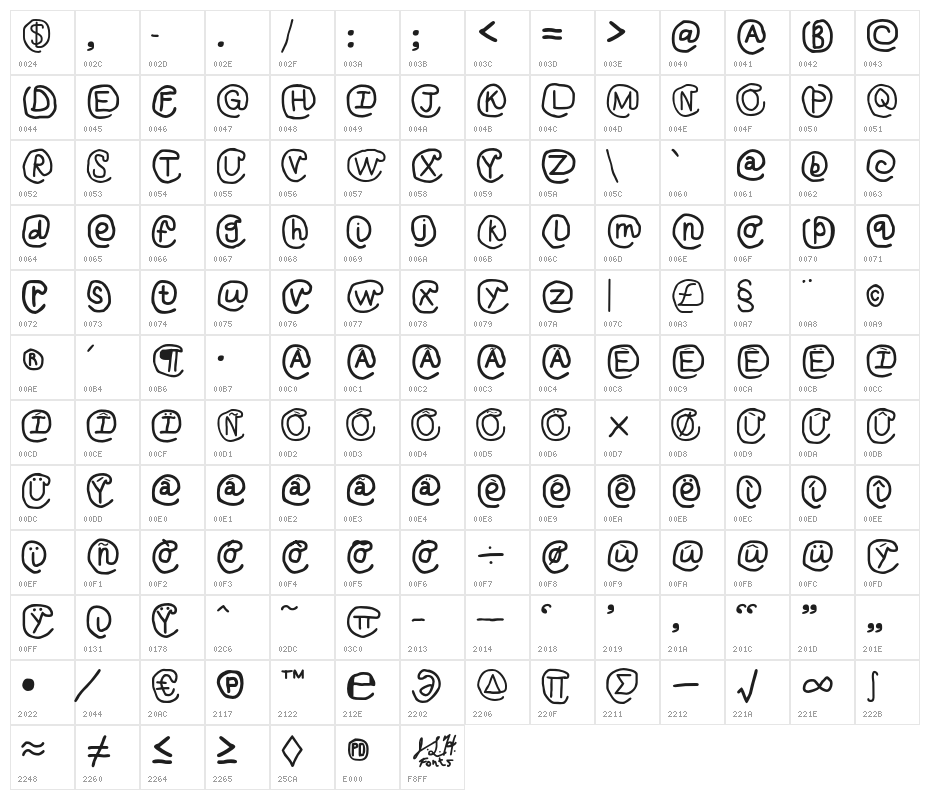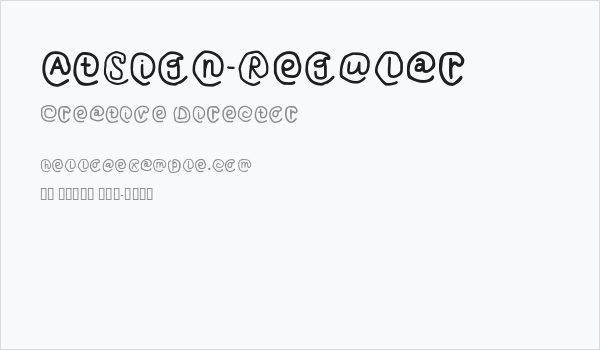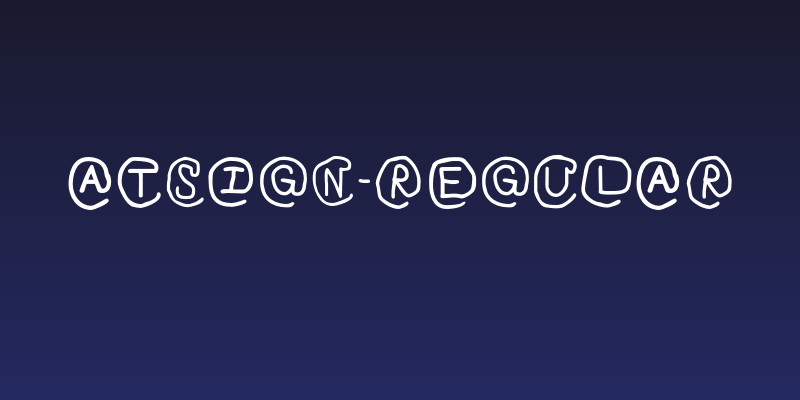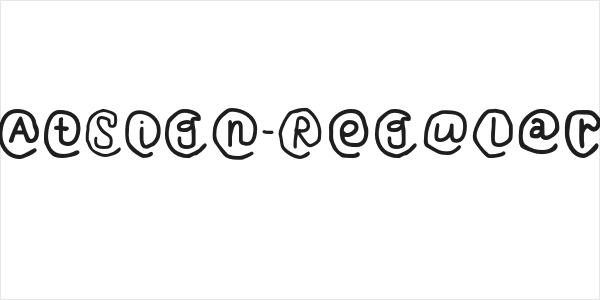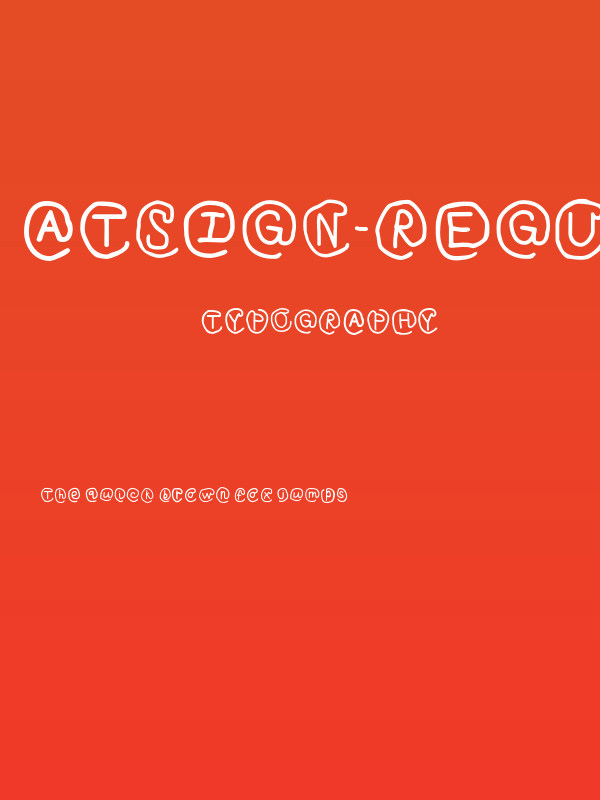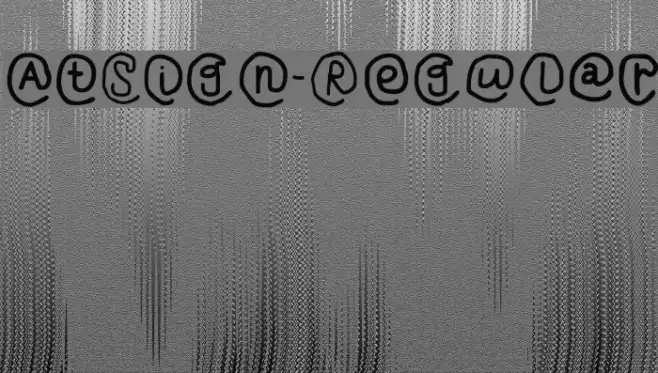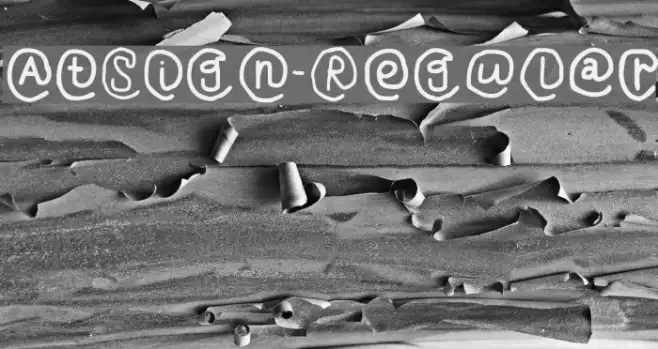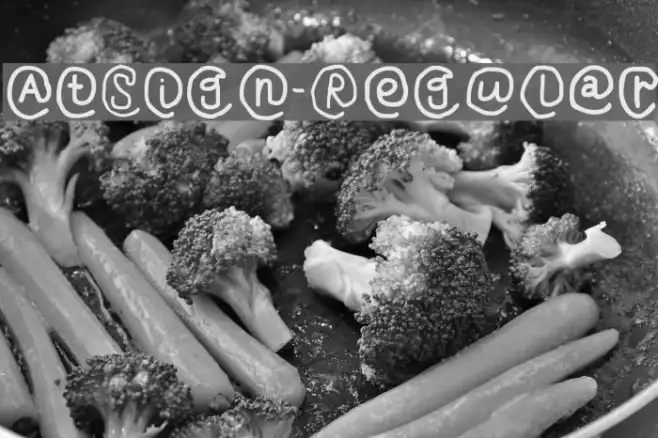
AtSign-Regular Font
AtSign-Regular Description
This playful and whimsical font features a hand-drawn style with a bold, rounded appearance. Each character is enclosed in a circular or oval shape, giving it a unique and informal look. The letters are slightly tilted, adding to the casual and fun aesthetic. The font maintains consistent thickness throughout, with a medium contrast between strokes. It is ideal for projects that require a friendly and approachable feel, such as children's books, comic strips, or playful branding. The font's distinct style makes it stand out, perfect for capturing attention in creative designs.
| Use Case | Headlines, Logos, Creative Designs |
| Proposed Projects | Children's books, comic strips, playful branding, creative designs. |